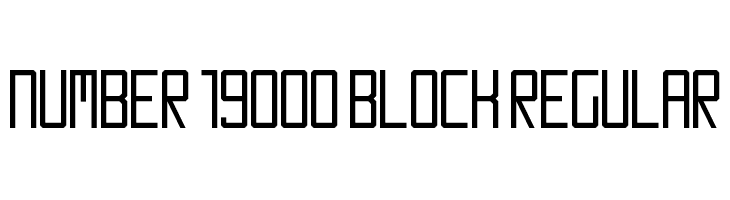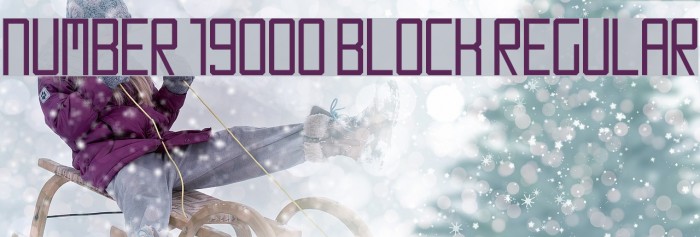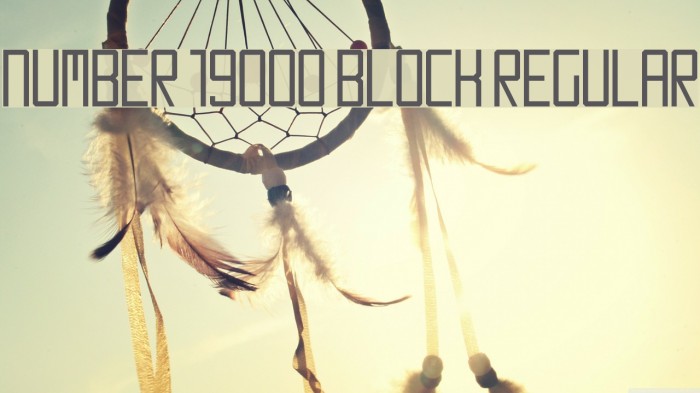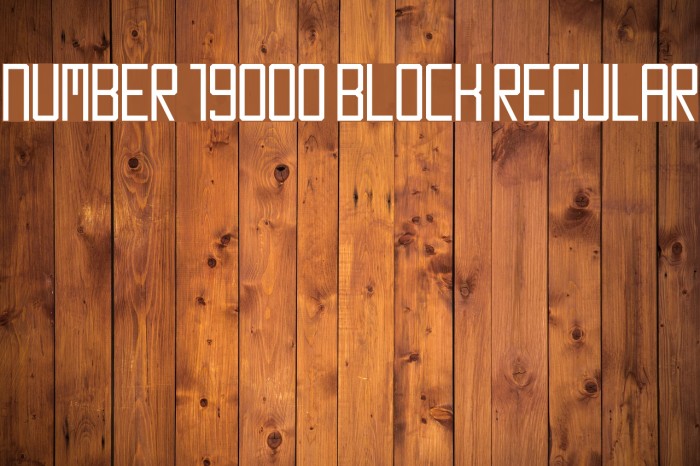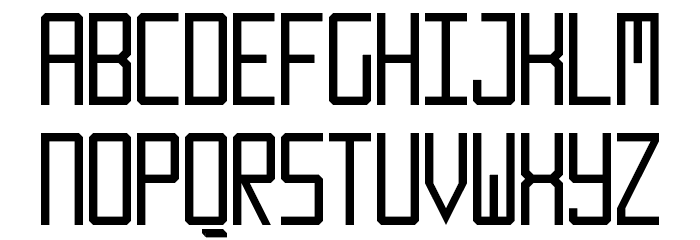
Number 19000 Block Regular Font
Number 19000 Block Regular Description
This font features a geometric and blocky design, characterized by its uniform stroke width and angular edges. The uppercase letters are tall and narrow, with a consistent height that gives a structured and orderly appearance. The font has a modern and industrial feel, with a focus on clarity and simplicity. The characters are evenly spaced, contributing to a clean and organized look. This typeface is well-suited for projects that require a bold and impactful visual presence, such as posters, signage, and branding materials.
| Proposed Projects | Suitable for posters, signage, branding, and any project requiring a bold, modern aesthetic. |